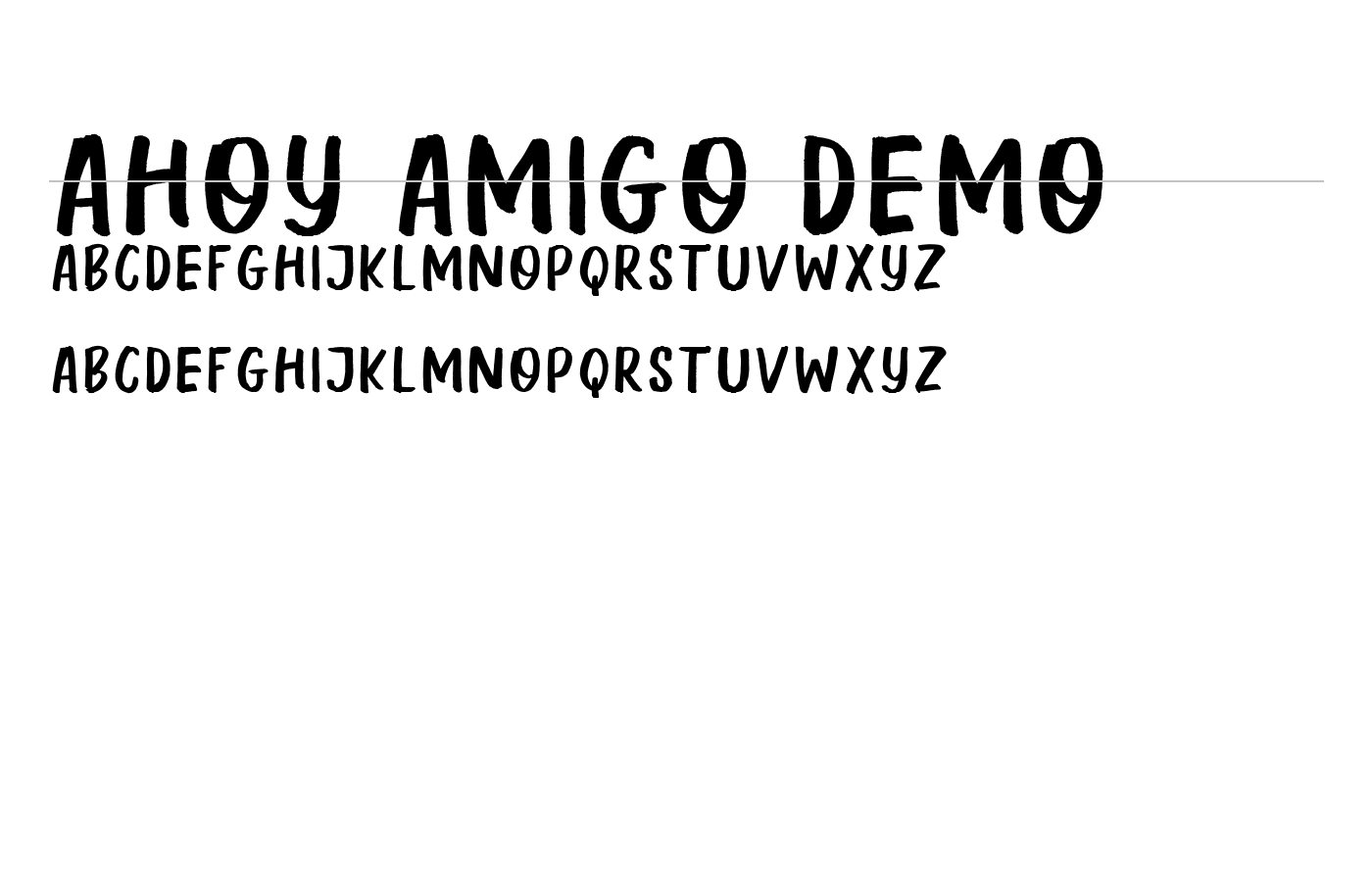
Ahoy Amigo DEMO is a playful and casual sans serif font with a hand-drawn feel, featuring irregular, slightly condensed letterforms and a medium x-height that creates a friendly and approachable look. Its uneven strokes and quirky shapes add personality and charm, making it ideal for creative projects, informal branding, and eye-catching headlines that want to convey fun and originality. This font works well in contexts where a relaxed, distinctive style is needed to grab attention without feeling formal or rigid.
Ahoy Amigo DEMO Font
About Ahoy Amigo DEMO Font